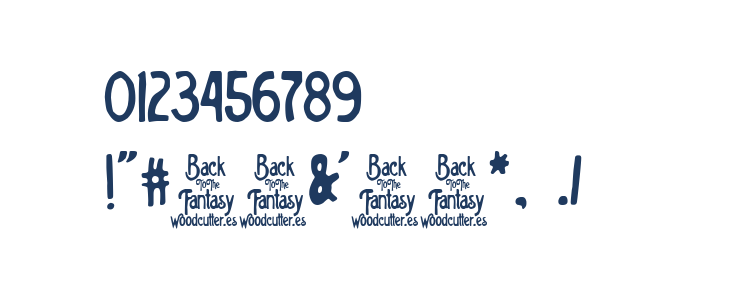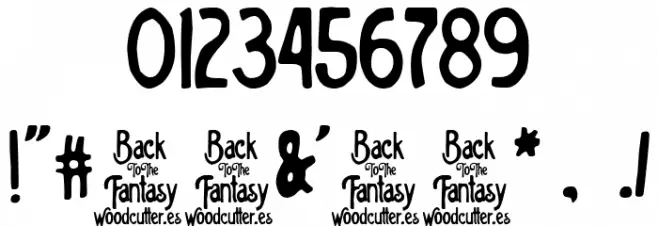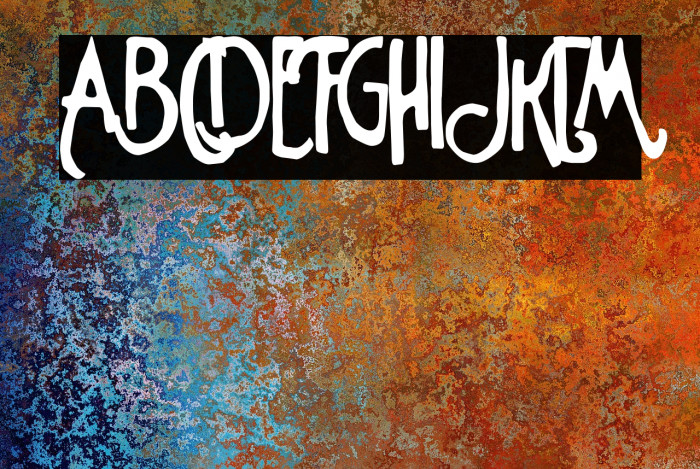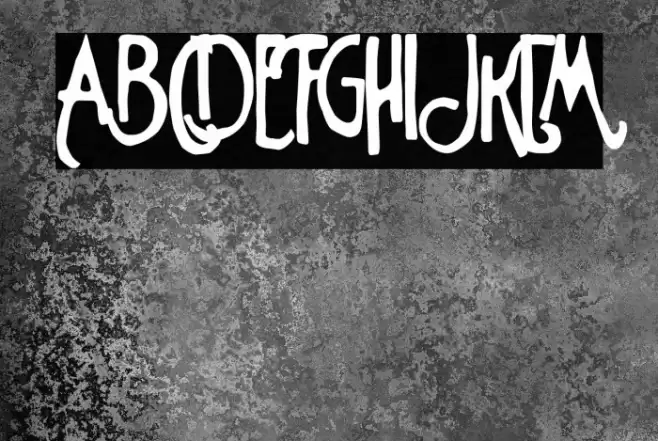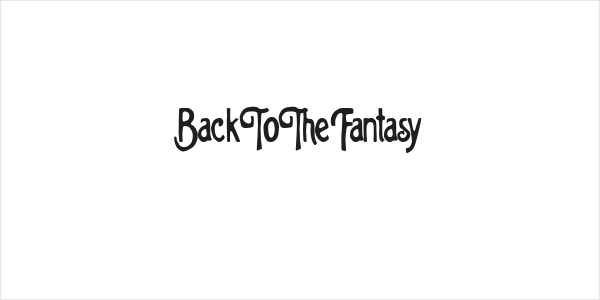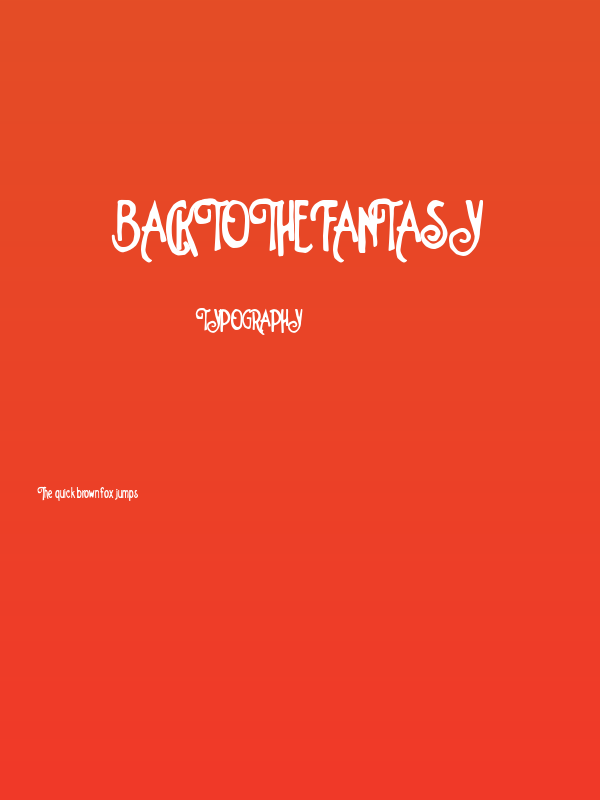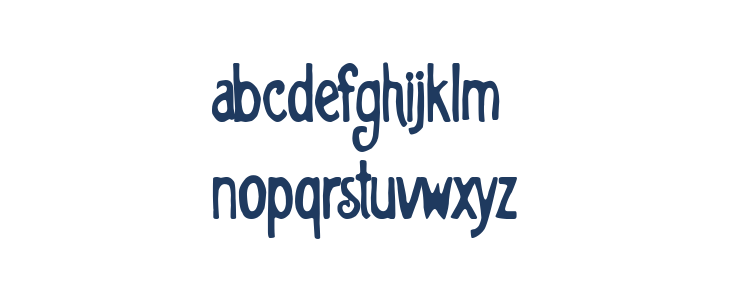
Back To The Fantasy Font
Back To The Fantasy Description
This font features a whimsical and playful style, characterized by its bold and irregular shapes. The uppercase letters have a unique, almost hand-drawn quality with exaggerated curves and loops, giving them a fantasy-like appearance. The lowercase letters maintain a consistent style, with some letters featuring distinctive swirls and curls. Numbers are bold and maintain the playful theme, while special characters are creatively designed to match the overall aesthetic. This font exudes a sense of fun and creativity, making it ideal for projects that require a touch of fantasy and imagination.
| Overall Style | Fantasy, Playful, Whimsical |
| Proposed Projects | Perfect for fantasy-themed posters, children's book covers, creative branding, and playful invitations. |